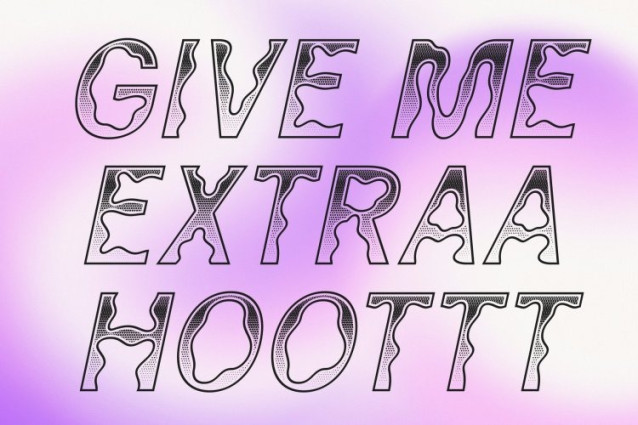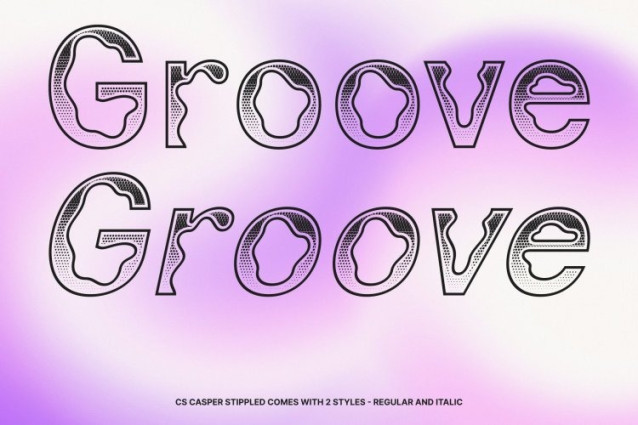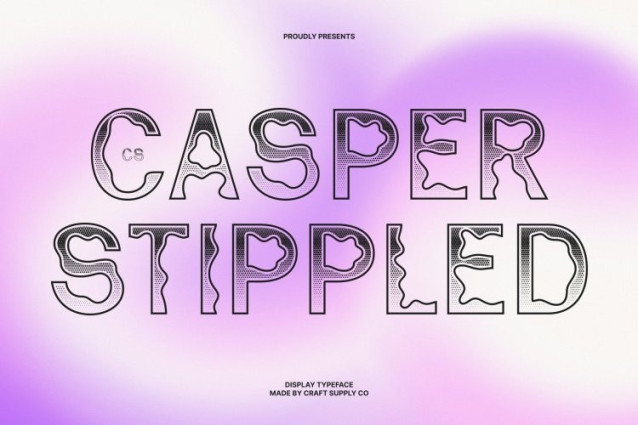
CS Casper Stippled Font
CS Casper Stippled Font – This is a display sans-serif font that embraces a bold psychedelic style, filled with imaginative and unconventional design elements. Its distorted letterforms, flowing curves, and dynamic shapes create a visually vibrant and expressive appearance. Enhanced with a stippled texture, the font gains an additional layer of artistic depth, giving each letter a dotted, handcrafted character that enriches its psychedelic identity.
Unusual Forms with Artistic Texture
The psychedelic influence in introduces funky, energetic shapes that feel playful and experimental. The added stippled effect brings subtle visual texture inspired by classic stippling techniques, creating a layered surface that enhances the organic and artistic feel of the design. This combination of fluid distortion and dotted texture makes the typography feel lively and visually engaging.
Perfect for Music Events and Experimental Graphics
This is ideal for projects that celebrate creativity and expressive design. It works especially well for music event posters, festival graphics, album covers, merchandise, and experimental layouts where bold visual personality is essential. Its vibrant structure ensures that headlines and titles stand out instantly.
Energetic Style for Creative Projects
From promotional materials to artistic branding, offers a versatile solution for designs that require a psychedelic edge. The fusion of playful distortion and stippled detailing creates typography that feels energetic, creative, and unmistakably distinctive perfect for projects that aim to capture attention and express artistic freedom.